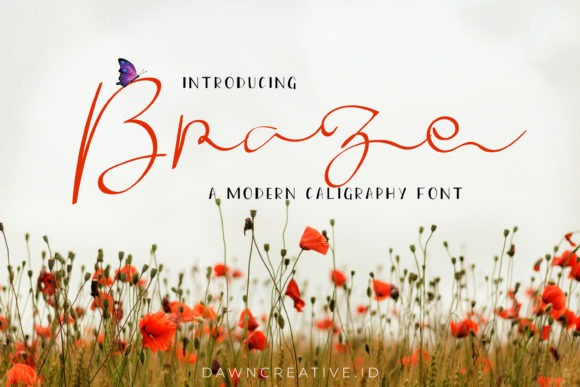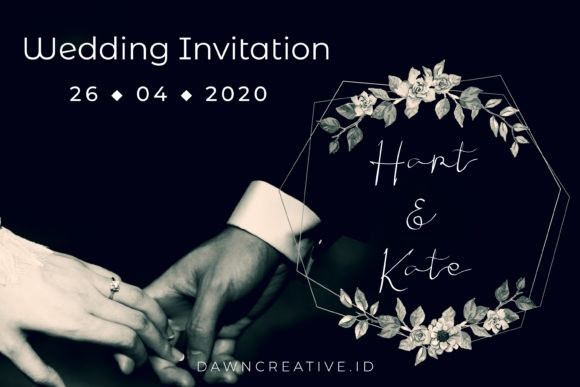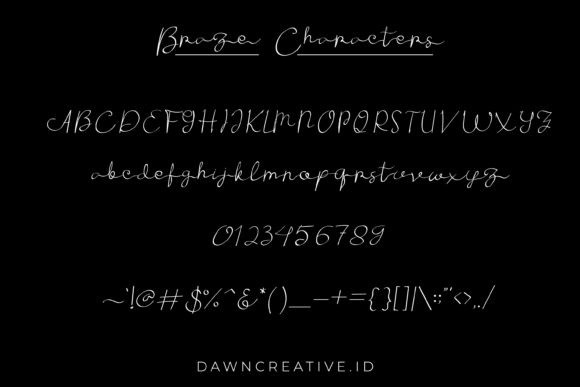
Braze Calligraphy Font
Braze is a sweet and casual handwritten font. It will elevate a wide range of design projects to the highest level, be it branding, headings, wedding designs, invitations, signatures, logos, labels, and much more!